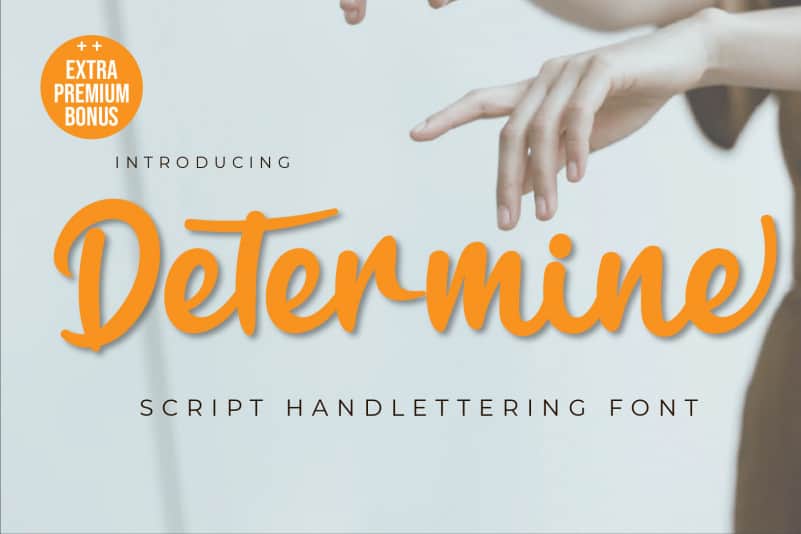
Determine Script Font
Determine Script Font is a sweet and friendly handwritten font. Its natural and unique style makes it incredibly fitting for a large pool of designs. The only limit is your imagination!
Fall in love with its incredibly distinct and timeless style and use it to create spectacular designs!